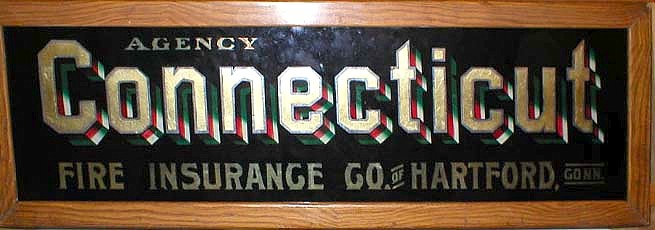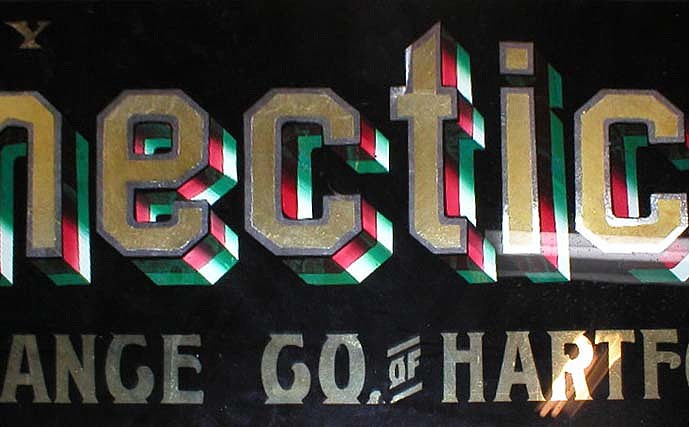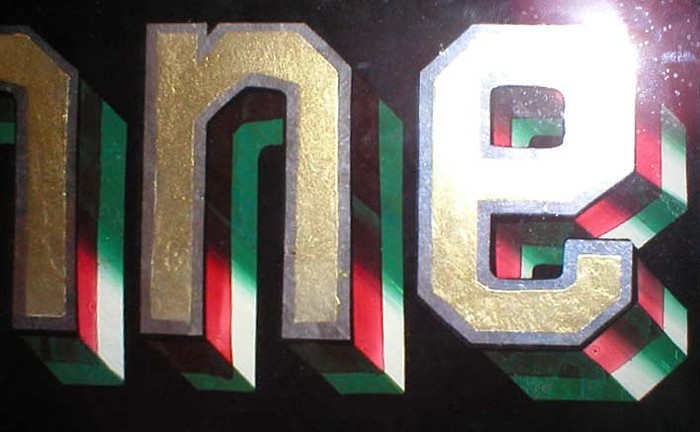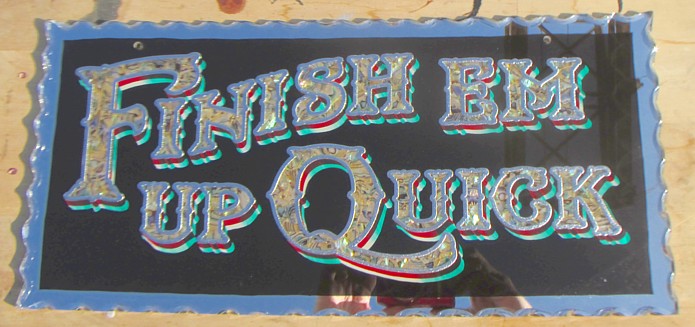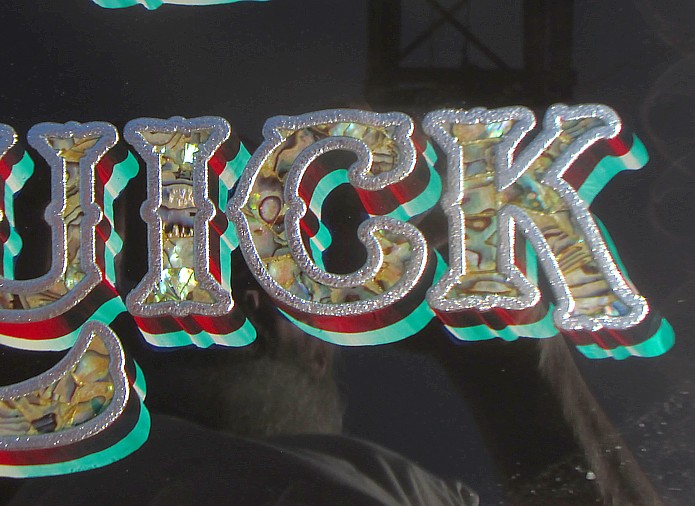
Interesting Split Shade Technique...
As I was going through some old sign photos, I came across this Connecticut Insurance sign....
It has a very eye catching split shade on the main copy.
I recon the black background was cut in after the gilding was complete. Then a green glaze was brush faded into the vertical and diagonal letter strokes. The horizontal letter strokes were also blocked in with the green glaze. When dry, the red and white split shade colors were added. It's a nice effect....I'll have to try it someday.....someday....
Larry: I looked closely at the example, and recognize that the shade was applied in a slightly different manner than you have deduced.
The white and red were actually applied as transparent varnish glazes, first, and allowed to dry.
The green was applied last. The artist probably had dark green, medium green and white cups of color, and did some blending as he filled the opaque layer.
That is the way I do split blended shades. It accounts for the way the red (in this example) goes straight to brown when the green is placed behind it.
With some thought in the selection of glaze tints and backing color, great combinations are possible.
I agree with Mark. Noel Weber demonstrated this technique when I first met him. My only reservation is that the green and white may have been added simultaneously leaving the need for only the red shade as a glaze......after cutting in the backgnd colour. Sure would help to see the back.
6 years ago, I mentioned I might like to try this shading style someday....
That day is tomorrow....but we do it MY way!
and I thought it would be a good idea to finish this one up quick....
I executed it as described at the beginning of this post.
Looks fantastic Larry. What glaze did you use or how did you mix it :?:
Its transparent screen ink in varnish.
So, to recap for those of us whose memories can't manage 6 posts up:
1) Cut the glass, drill the glass, nip the glass
1a) Lettering with fumed acid etch, spray silver, shell infill, mirror borders.... (you know, the usual stuff)
2) Opaque black background cut in, leaving "shades" still clear glass
3) Green glaze brushed in over part of the clear glass and let dry
4) Red (opaque or glaze?) shade brushed in close to letters and let dry
5) Opaque white applied over all
Sure looks bright and pretty
Close...it actually went more like this....
1) Cut glass, nip the edge, then drill the holes (if you drill the holes prior to nipping the edge, there will be a weak spot at the hole and the stress of nipping could break the glass at that weak spot)
2) Apply computer cut mask of the lettering brightlines for acid etching.
3) Did a 3 pass face up acid emboss on the letter outlines.
4) Solution silvered entire piece, pouring method.
5) Backed up the silvering on the acid embossed letter outlines and perimeter border, clean excess silver off.
6) Cut in background in Prussian Blue japan color, leaving the shade areas clear.
7) A green glaze was brushed in over part of the clear glass in a fading style and let dry.
8 ) Opaque red japan color shade brushed in for split shade effect and let dry.
9) Opaque white applied over all in the shade areas.
10) Two different types of shell were mosaiced into the letter centers using varnish.
11) Shell letter centers were again varnished and fine mica flakes were applied to the voids between the shell pieces.
12) Entire inscription was again varnished and backed with aluminum foil.
13) Entire backside was flocked.
14) Hangers installed and hung on wall.
15) Crossed of the "to do" list.
That's enough for now... it's gettin' late
Town Of Machine
http://www.walljewelry.com
Dan Seese
Posts: 324
Joined: Tue Apr 13, 2004 11:29 pm
Location: Fort Collins, CO
Re: Interesting Split Shade Technique...
Post by Dan Seese »
So, Larry, the only thing I don't quite understand is the opaque red japan color for the split shade.
Seems like it would need to be a transparent red ink. But are you saying you did the entire shaded area - the green and the red - with a transparent green glaze. Then when you painted the opaque red, it basically "overpowered" the green glaze? And at what point did you do the blend on the shadow? Was it after you did the green - or is that what you mean by "fading style"? The blended shading is much stronger on the red than the green - which appropriately makes the silver outlines pop - but maybe it's just the opaque red that causes the bolder shading.
Guess I should try it myself and see what happens!
Thanks for the photos and explanation.
Tyler Tim
Posts: 209
Joined: Fri Feb 03, 2012 12:12 am
Re: Interesting Split Shade Technique...
Post by Tyler Tim »
7) A green glaze was brushed in over part of the clear glass in a fading style and let dry.
Dan I believe he did a light green wash and built up more glaze to define the shade from lighter to darker.
That's my take from it.
Sure I paint thing for my amusement and then offer them for sale. A brushslinger could whither en die from lack of creativity in this plastic town my horse threw a shoe in. :shock:
Re: Interesting Split Shade Technique...
Correct...the green glaze was "brush blended" in a fading technique over the entire
open shade area.That's what produces the fading green color. This was the
only glaze color used. After it was dry, the opaque red was applied. What you see
is the true red color and the changing of the red color as it shows through the
fading transparent green glaze. After that, the only open area that was left, was
blocked in with white. The white then fades to green as it shows through the fading
transparent green glaze. Hopefully that makes sense...
Yes, that makes perfect sense. I've never done it that way but can definitely see how that works. When the opaque red backs up its complementary color of green, a nice natural shade results.